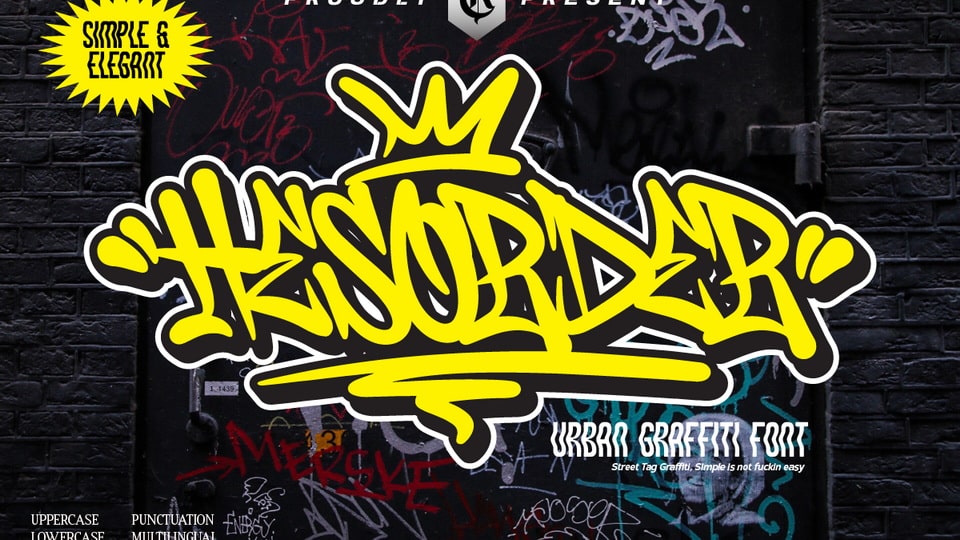
Download Hesorder font, an urban graffiti font inspired by street graffiti markings style in many big cities. This style is bolder and easier to read, perfect for your street art design style.